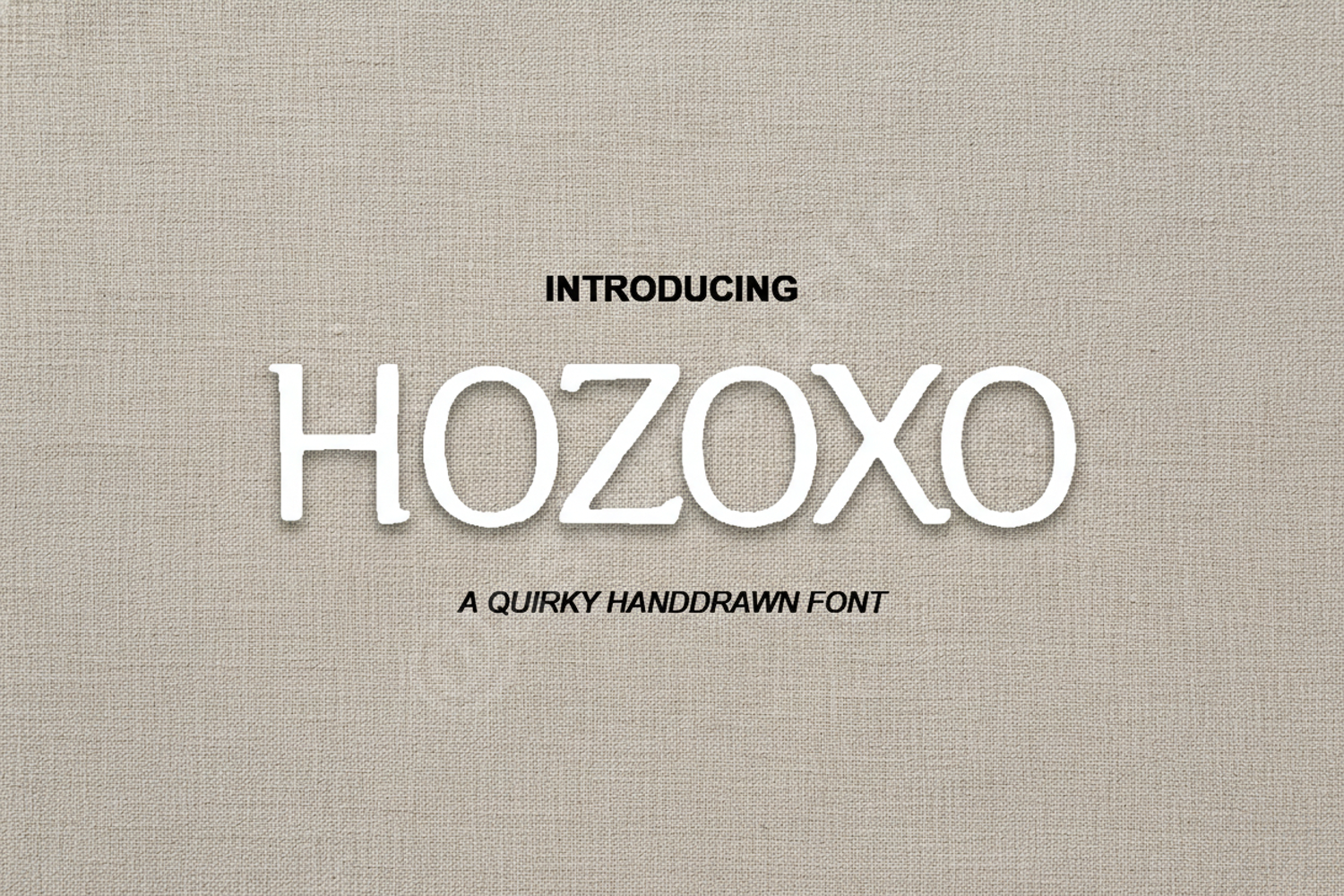
Hozoxo - Modern Geometric Sans Serif
Hozoxo
Hozoxo is a premium geometric sans-serif font designed to bring a touch of modern sophistication to any creative project. With its clean lines and balanced proportions, Hozoxo offers exceptional legibility and a professional aesthetic that stands out in both digital and print media. This typeface is meticulously crafted for designers who demand versatility and a high-end feel in their typography.
- Branding and Visual Identity: Create impactful logos and cohesive brand guidelines.
- Editorial Design: Perfect for high-end magazine layouts, headers, and body text.
- Social Media Graphics: Elevate your Instagram, Pinterest, and Facebook promotional content.
- Web Design: Ensure a clean, readable, and modern user interface.
- Print Materials: Ideal for professional business cards, posters, and brochures.